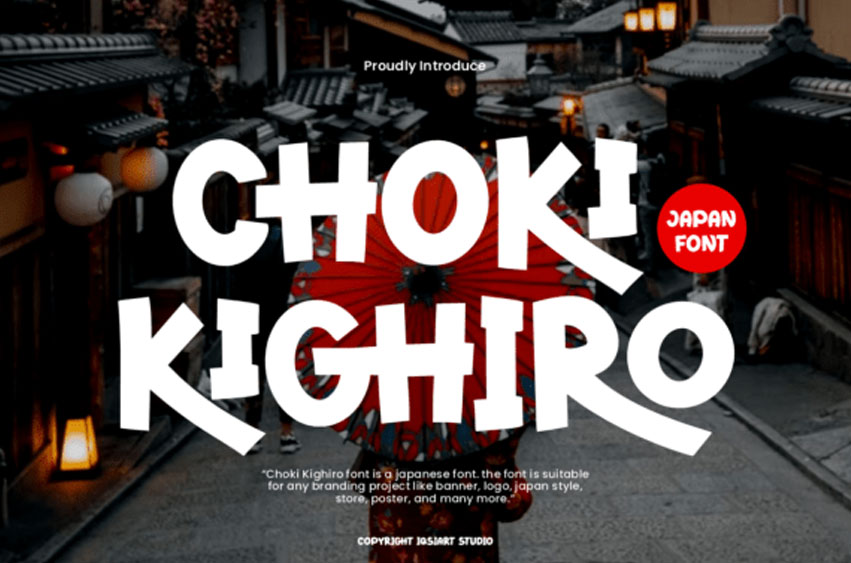
Choki Kighiro Font
Choki Kighiro Font typeface is a playful Japanese-inspired display font that blends bold brush energy with friendly rounded forms. Each letter looks hand-cut and slightly irregular, creating a lively rhythm that jumps off posters, packaging, and social banners. Thick strokes, big counters, and quirky terminals give headlines instant character while staying easy to read at a distance.
Use it to channel street-market signage, festival flyers, ramen shops, anime events, travel vlogs, and youth brands. Choki Kighiro pairs beautifully with clean sans-serifs and simple layouts, so your visuals feel modern yet handcrafted. It includes uppercase, lowercase, numerals, and punctuation for quick, versatile typesetting. Dial up the fun with tight tracking and big titles, or space it wide for an airy, cinematic mood. Wherever you place it, Choki Kighiro brings a warm personality and confident motion.